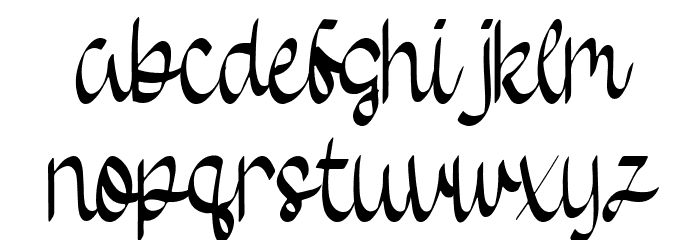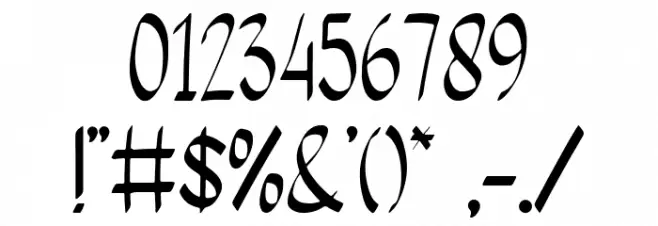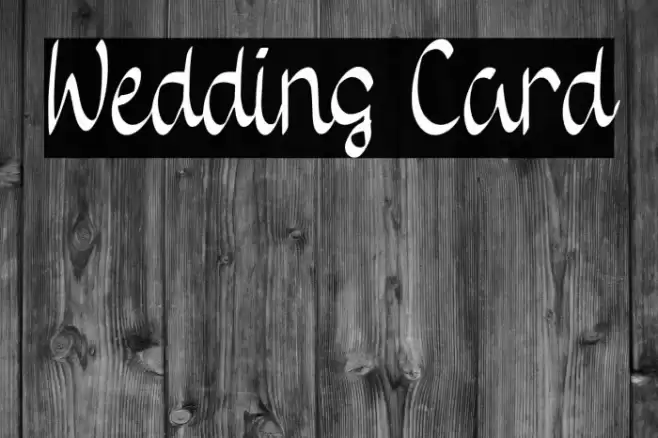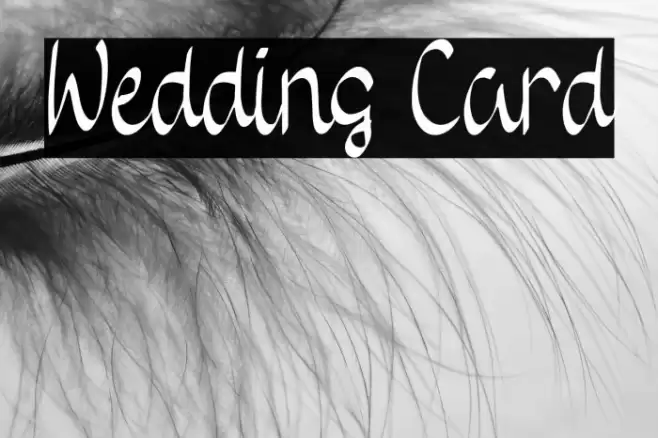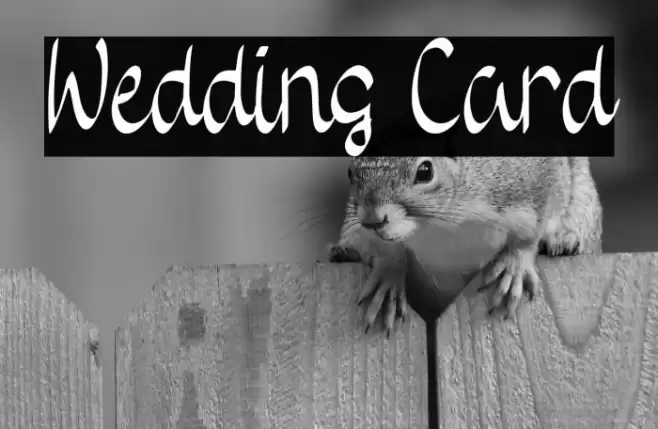
Wedding Card Font
This font features a charming and elegant script style, characterized by its flowing, cursive letters. The uppercase letters are tall and slightly narrow, with a graceful, sweeping quality that adds a sense of movement and sophistication. The lowercase letters maintain a consistent style, with smooth, rounded forms that complement the uppercase characters. The numerals are clear and legible, designed to match the overall aesthetic of the font. Special characters are included, each crafted with the same attention to detail and elegance. This font is perfect for creating a romantic and stylish look, ideal for formal invitations and decorative purposes.
An elegant and flowing script font, perfect for romantic and formal designs.
- Proposed Projects: Ideal for wedding invitations, greeting cards, event announcements, and decorative branding.
- Overall Style: Elegant
- Use Case: Headlines, Invitations, Decorative text